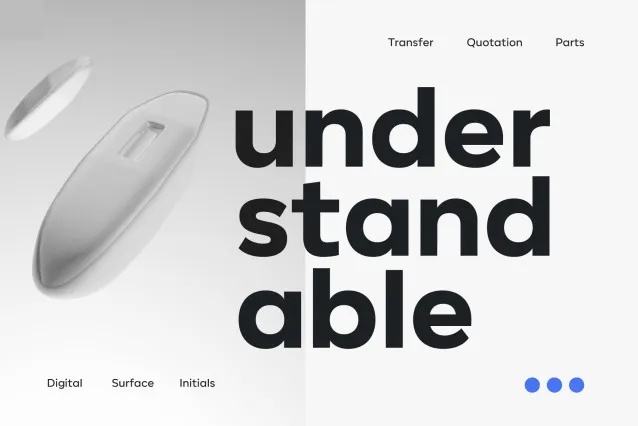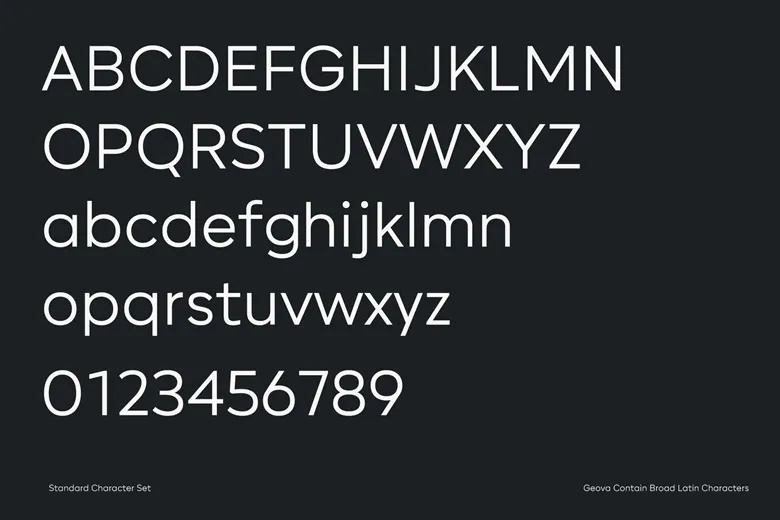
Geova Font Family
Geova is a geometric sans-serif font family with subtle humanist influences and proportional letterforms. Designed with clarity and versatility in mind, Geova balances a clean aesthetic with a warm, approachable feel—making it suitable for both display and body text.
Whether you’re working on corporate branding, modern editorial layouts, product packaging, or digital interfaces, Geova adapts effortlessly to a wide range of design themes. Its geometric structure paired with humanist details gives it the perfect blend of precision and personality.
Ideal for use in large-scale formats like headlines, websites, brand identities, titles, and more, Geova brings consistency and style to any visual project.
Geova Sans Serif Font Family